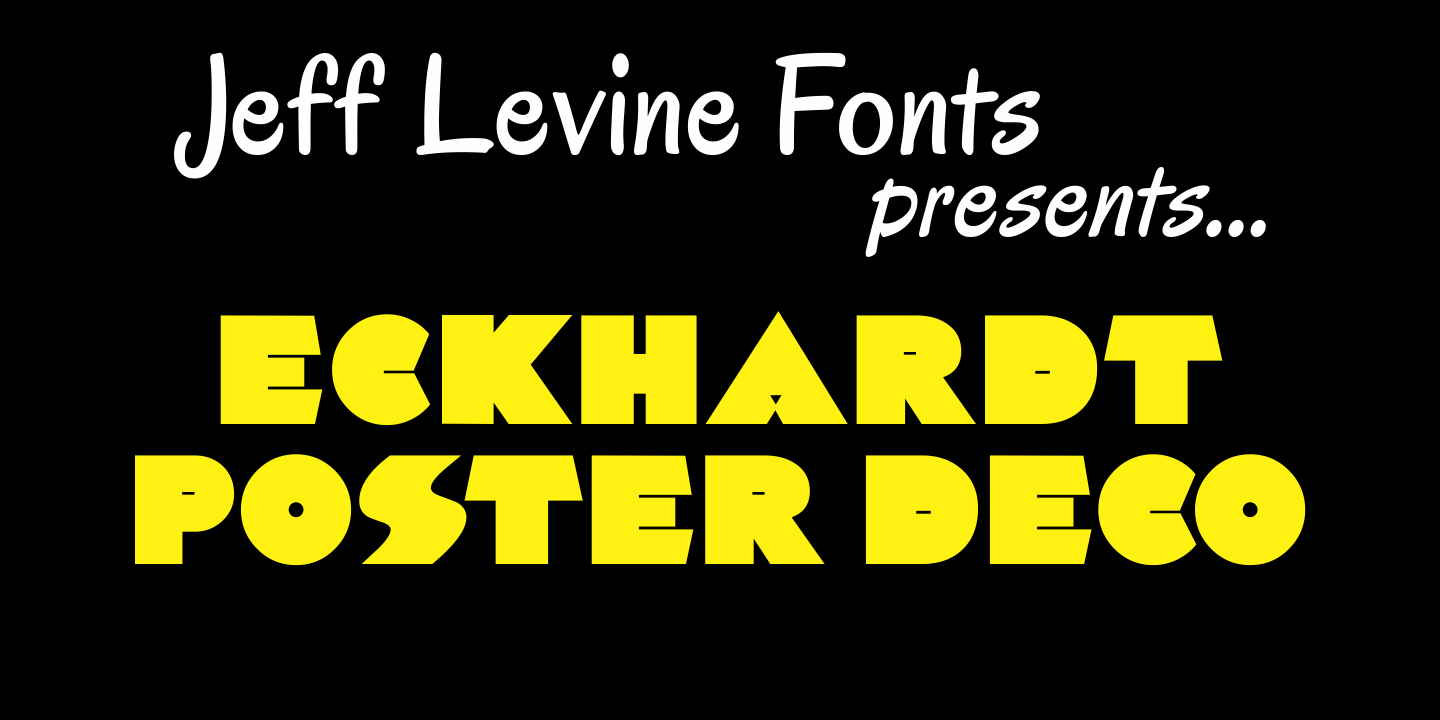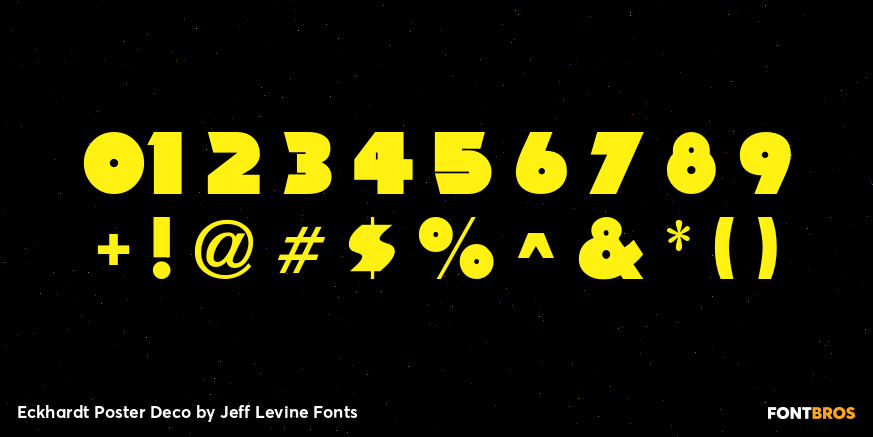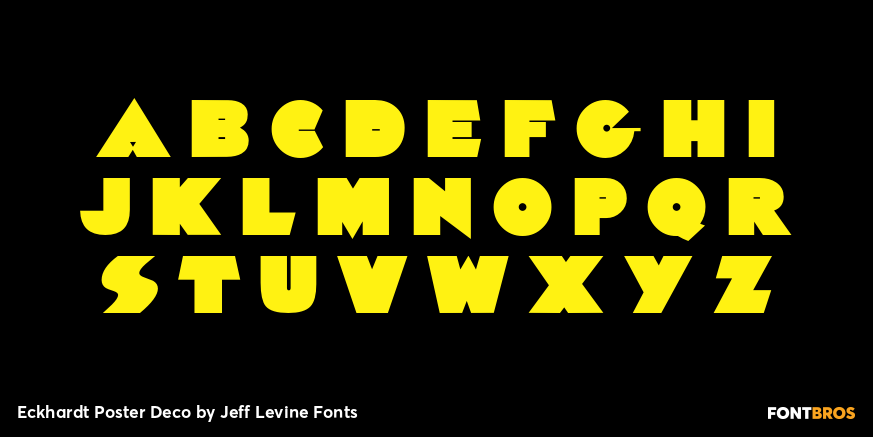
Eckhardt Poster Deco
Eckhardt Poster Deco JNL is a continuation of a series of sign painter's fonts, and was modeled from a lettering example found within the pages of an old sign design manual. It's named, as always, in honor of the late Albert Eckhardt, Jr. - the owner of Allied signs in Miami, Florida and Jeff Levine's good friend.
Eckhardt Poster Deco JNL Regular by Jeff Levine Fonts